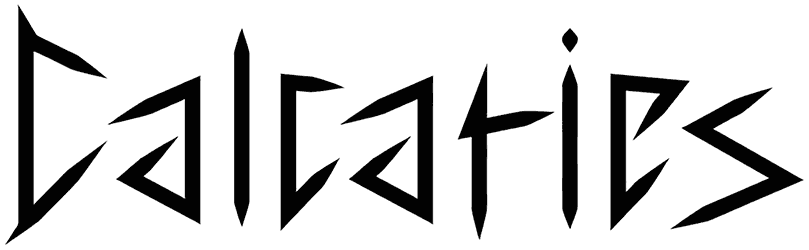
Calcaries Font
Would you desire a unique and modern style for your future layout to give it a captivating face? This gothic font, which is called Calcaries, has ace hand-drawn letters and keen and harsh edges. Even with no punctuation marks, this tribal font is a superb choice for various innovative designs from movie posters to apparel.